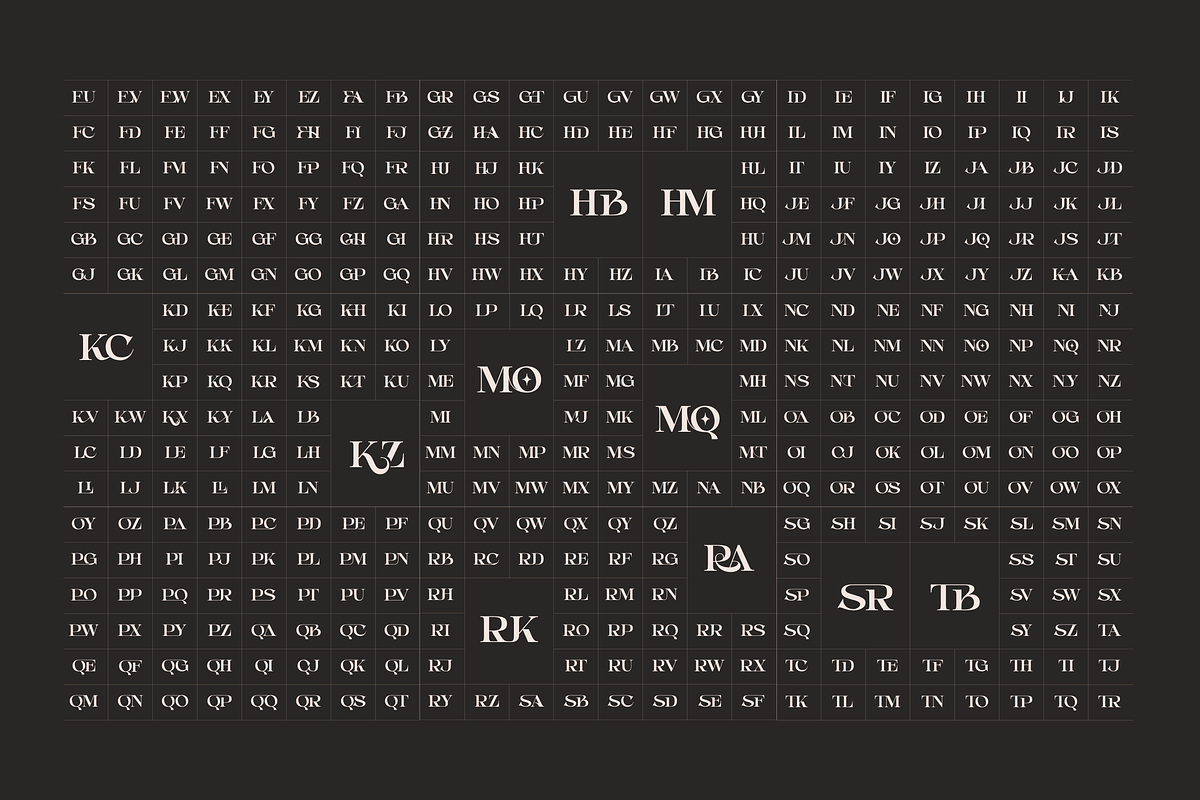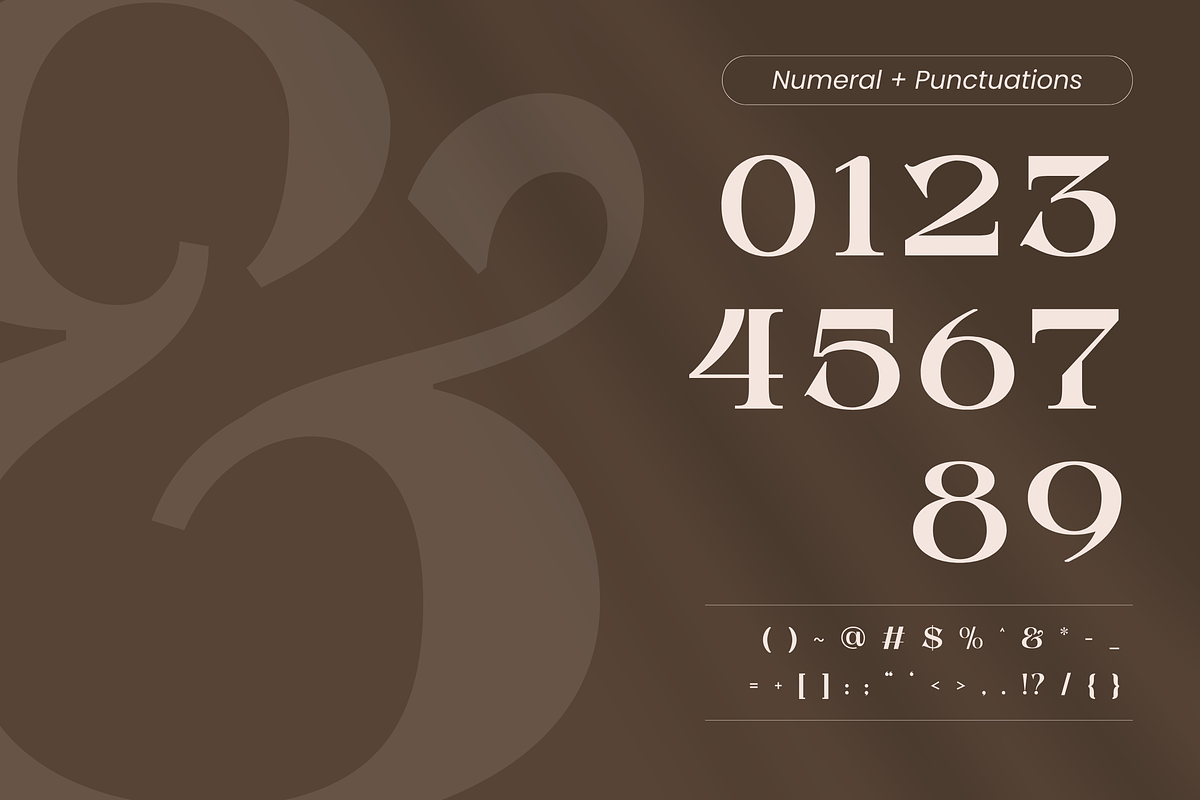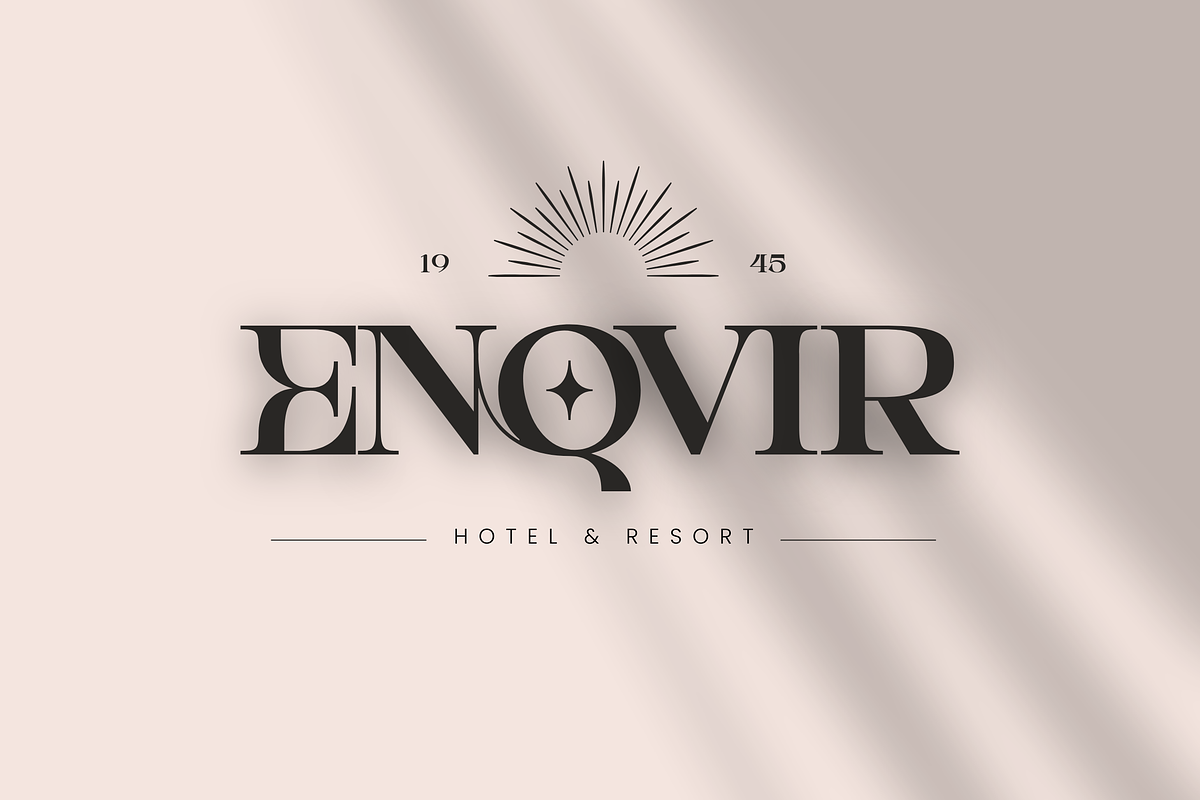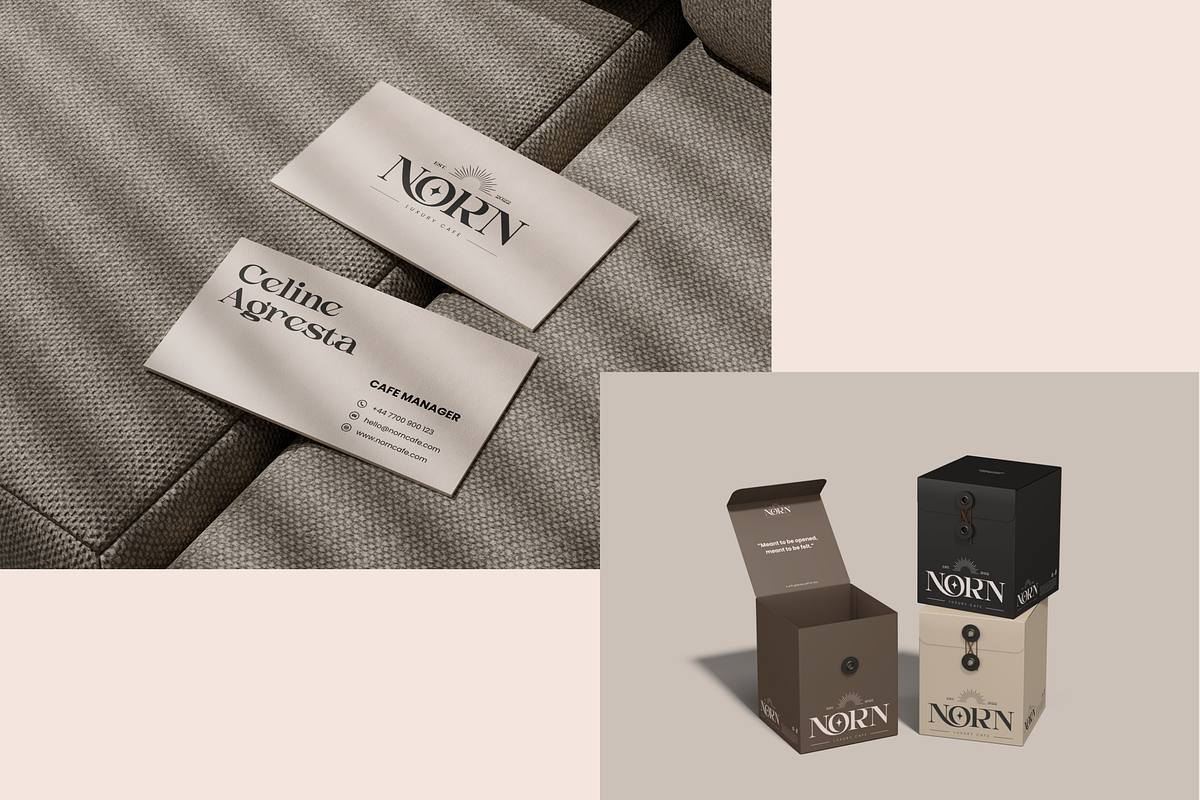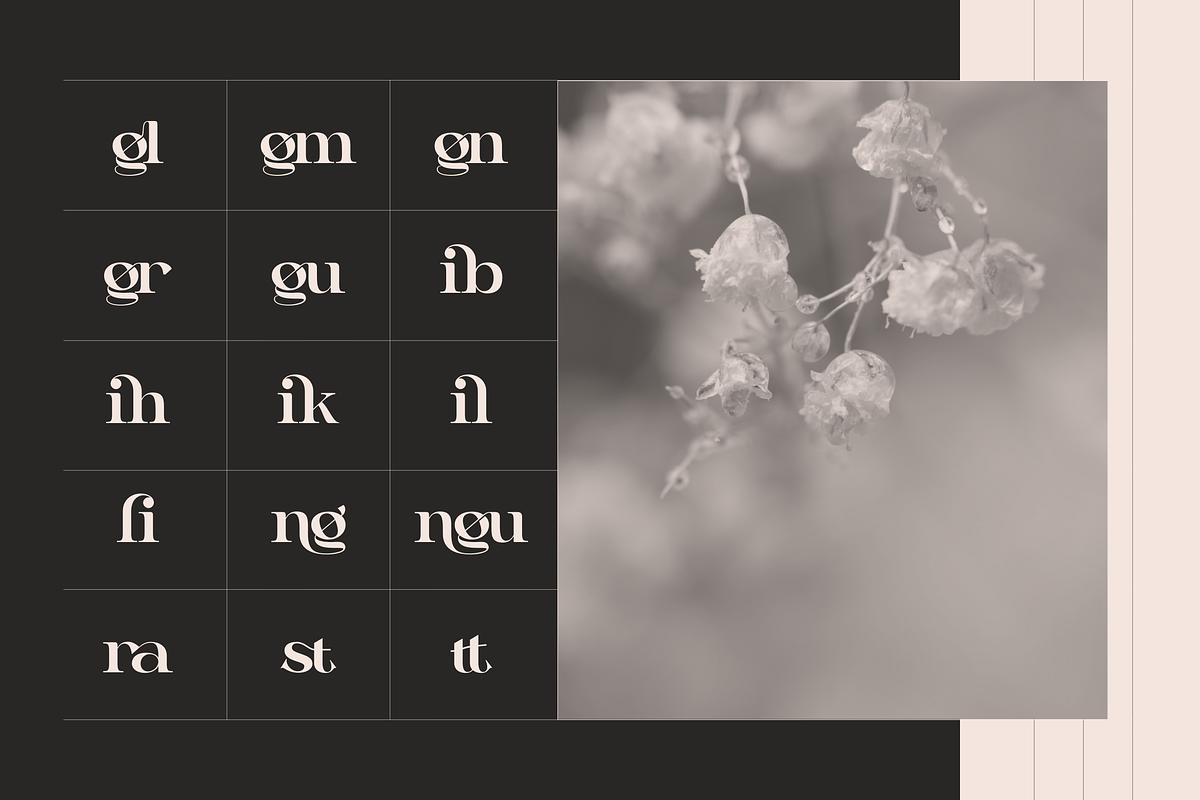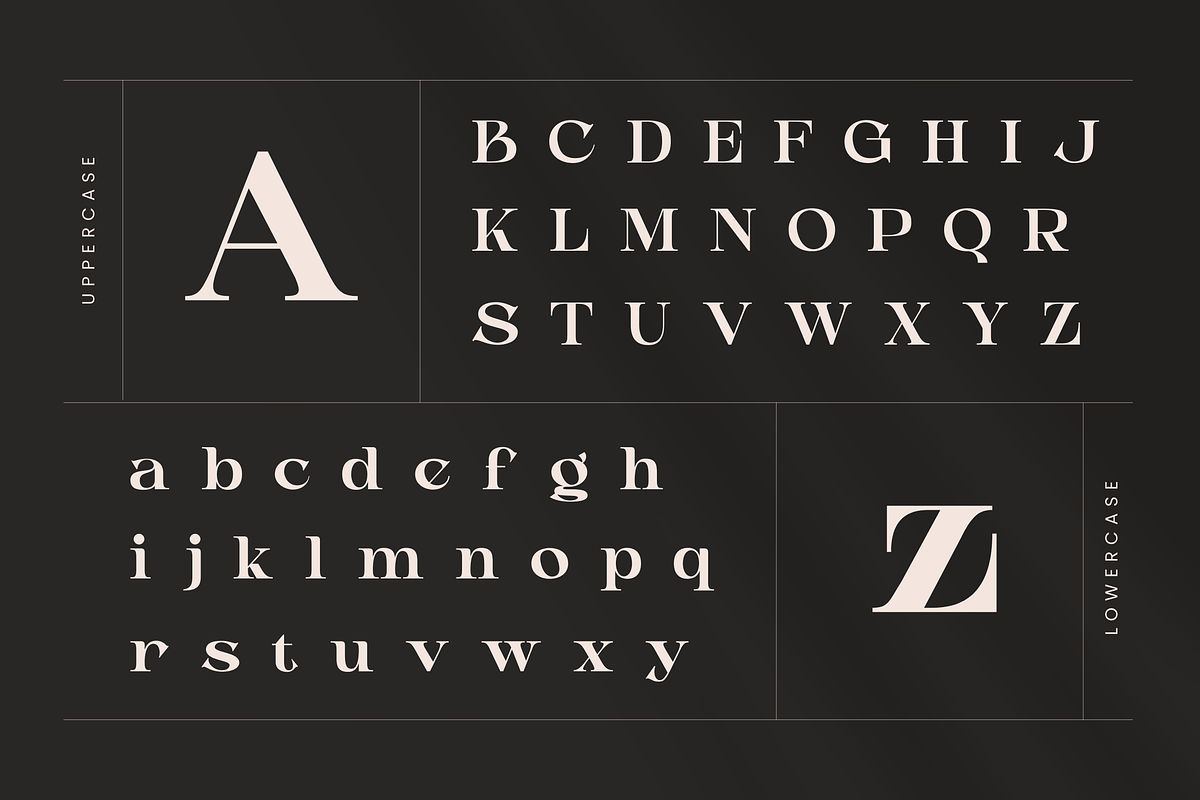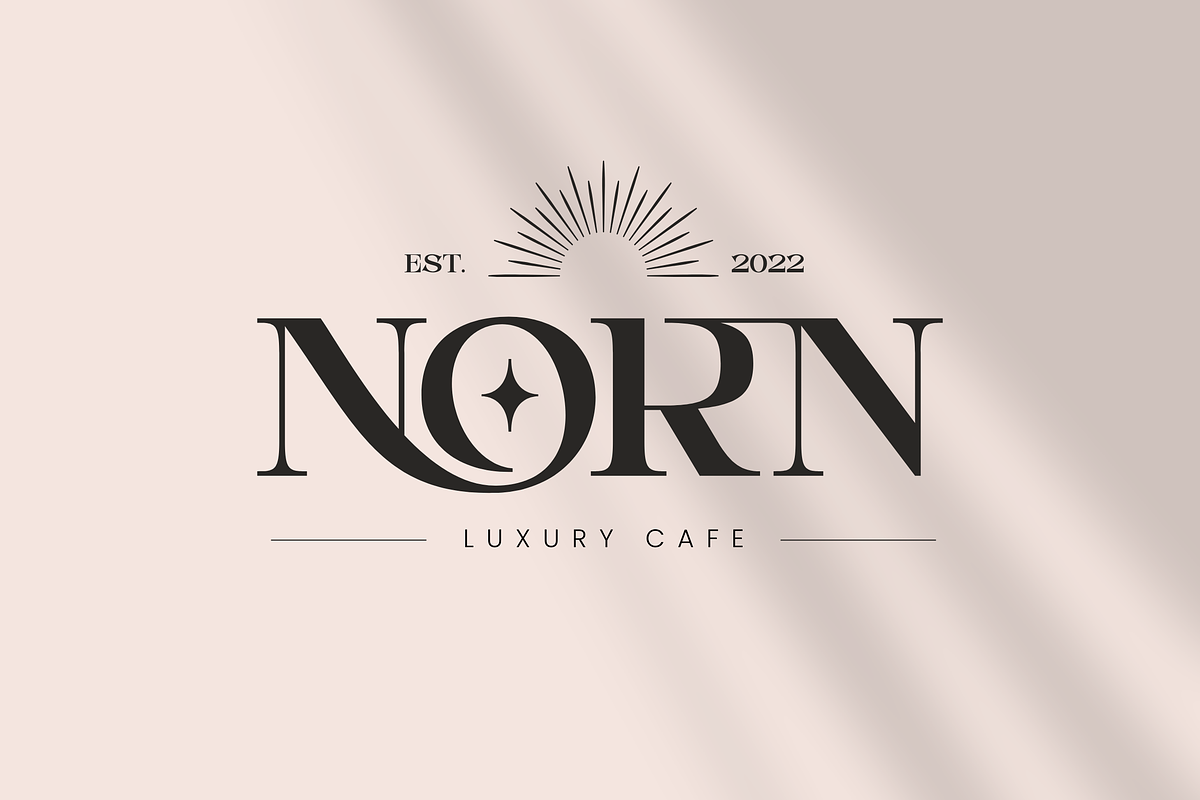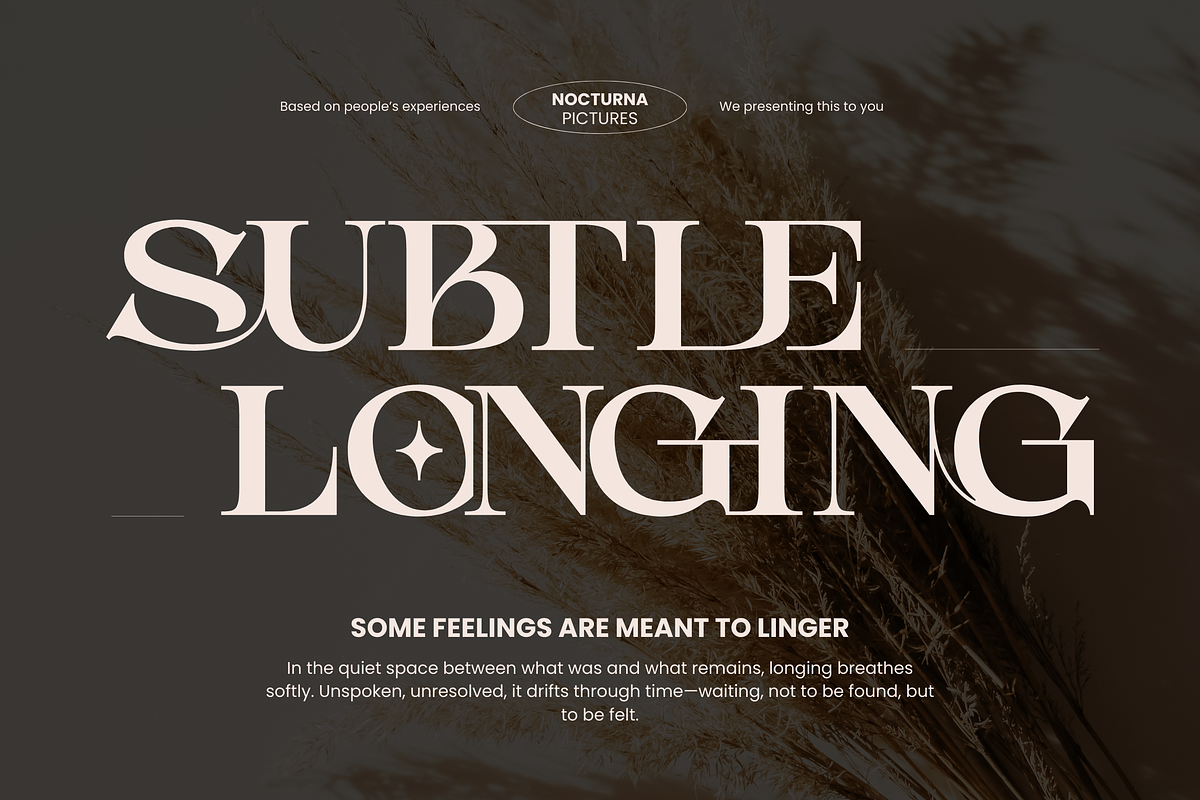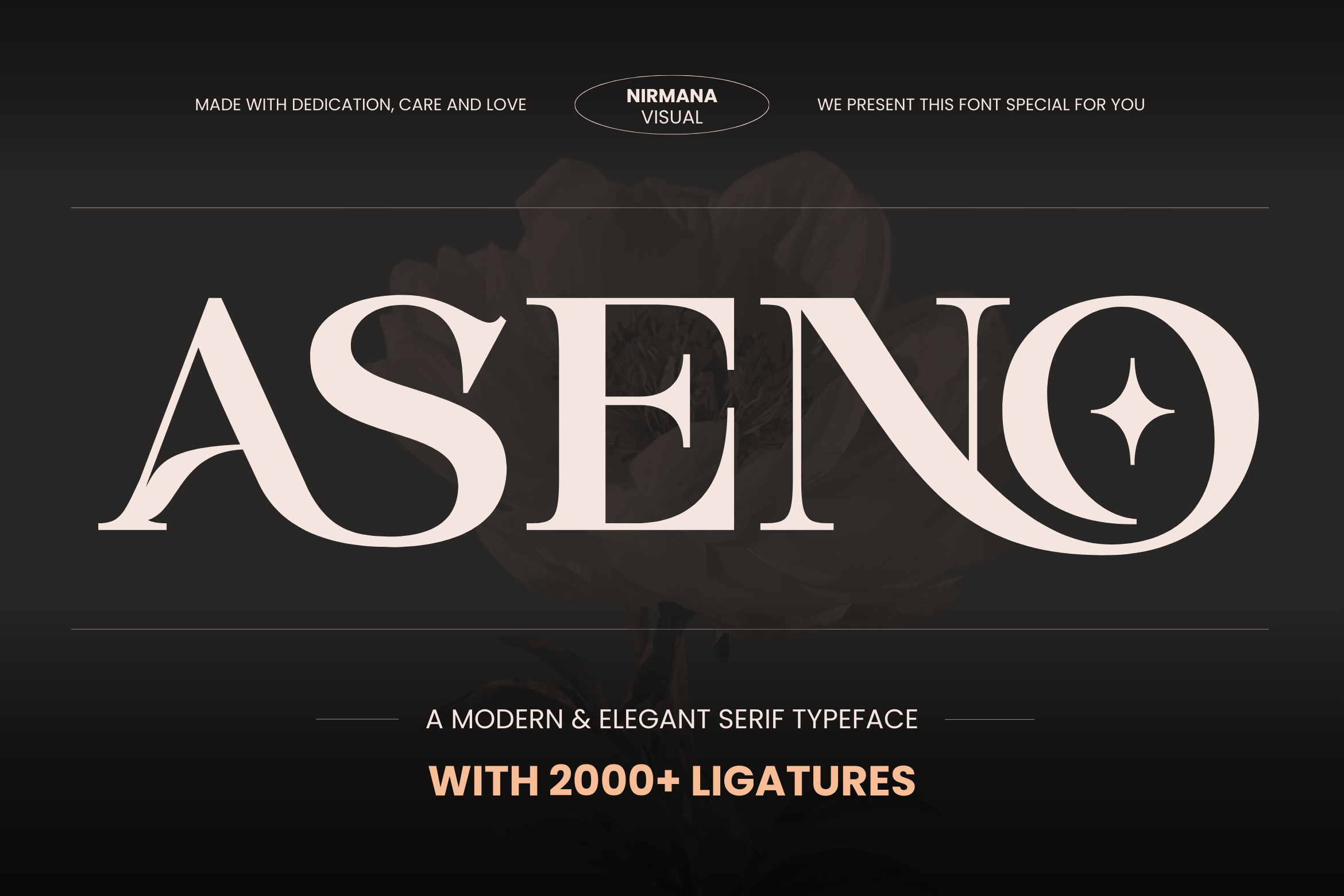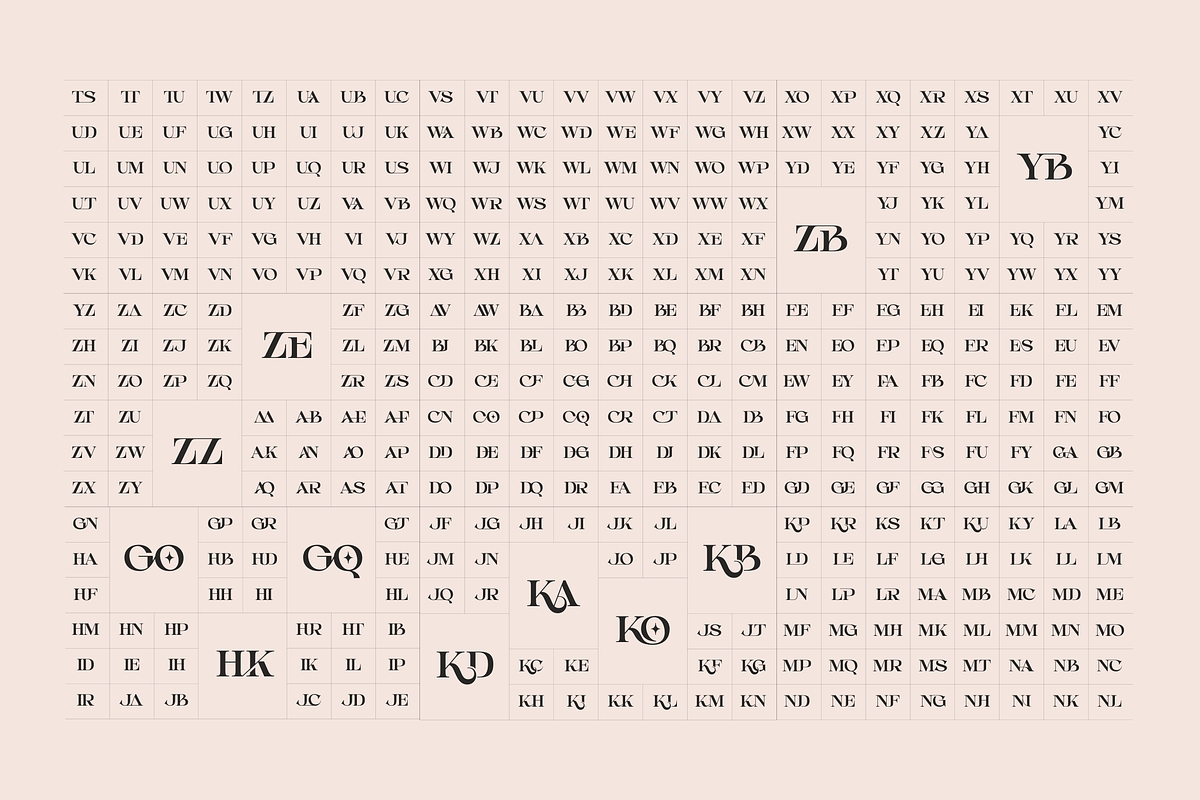
Aseno Modern - Ligatures Serif Font
Aseno is a sophisticated serif typeface designed for those who believe that typography is an art form. While its roots are firmly planted in the timeless traditions of high-contrast serif design, Aseno breaks free from the grid with an extraordinary library of over 2,000 ligatures.
This isn't just a font; it’s a toolkit for creating bespoke, hand-lettered aesthetics with the ease of digital typesetting.
Key Features The Ligature Powerhouse: With a staggering 2,000+ custom ligatures, Aseno automatically transforms standard pairings into fluid, interlocking works of art. From subtle connections to dramatic, sweeping flourishes, every word becomes unique.